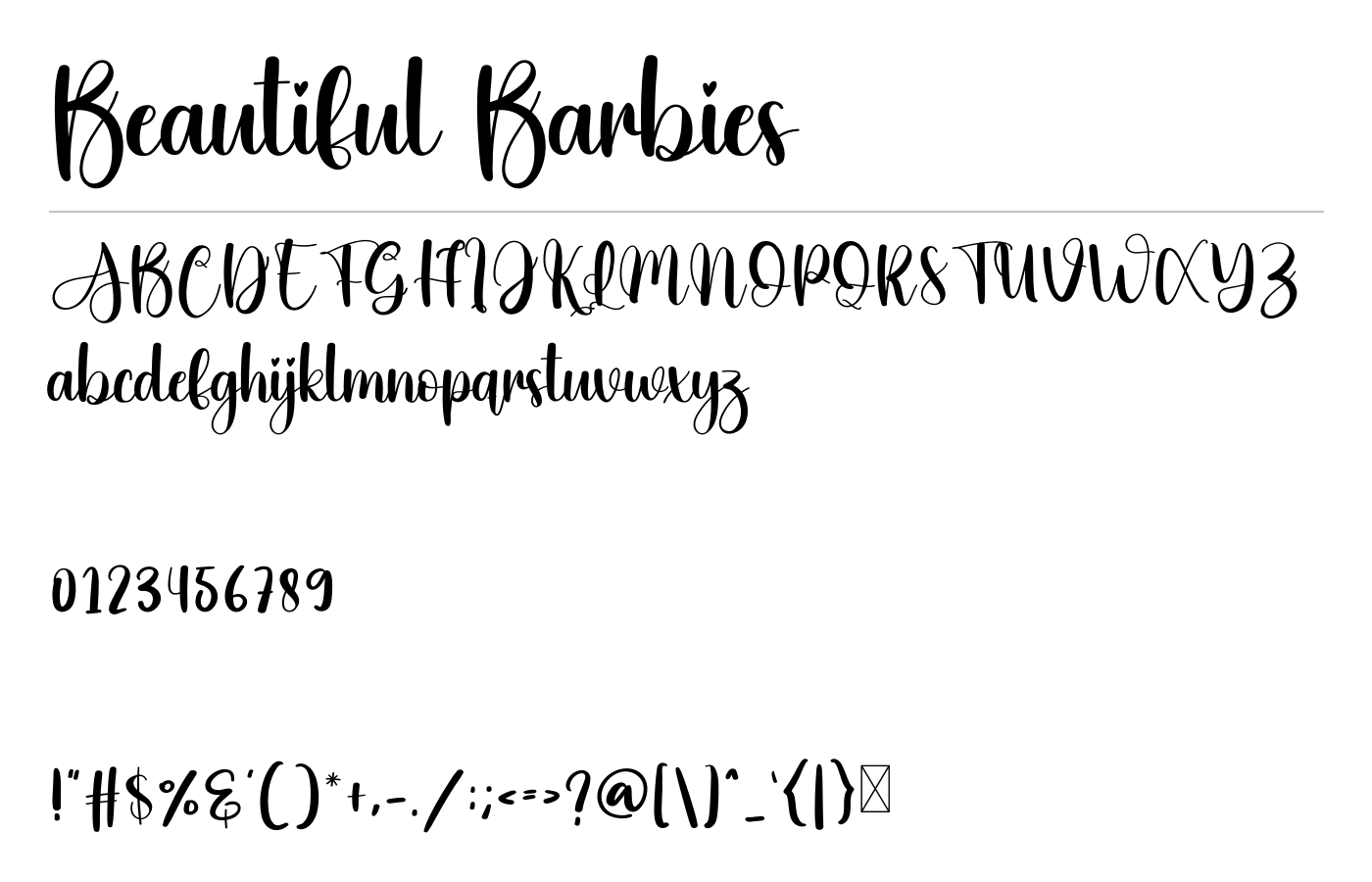
Beautiful Barbies is a playful, charming script font featuring elegant, flowing letterforms with varied stroke widths and whimsical heart details that add a sweet, feminine touch. Its smooth curves and lively style make it perfect for creative branding, invitations, or fashion projects seeking a modern yet warm and friendly personality. This font shines in logos, social media graphics, and headlines where a touch of elegance with a fun, youthful vibe is desired.
Beautiful Barbies Font
About Beautiful Barbies Font